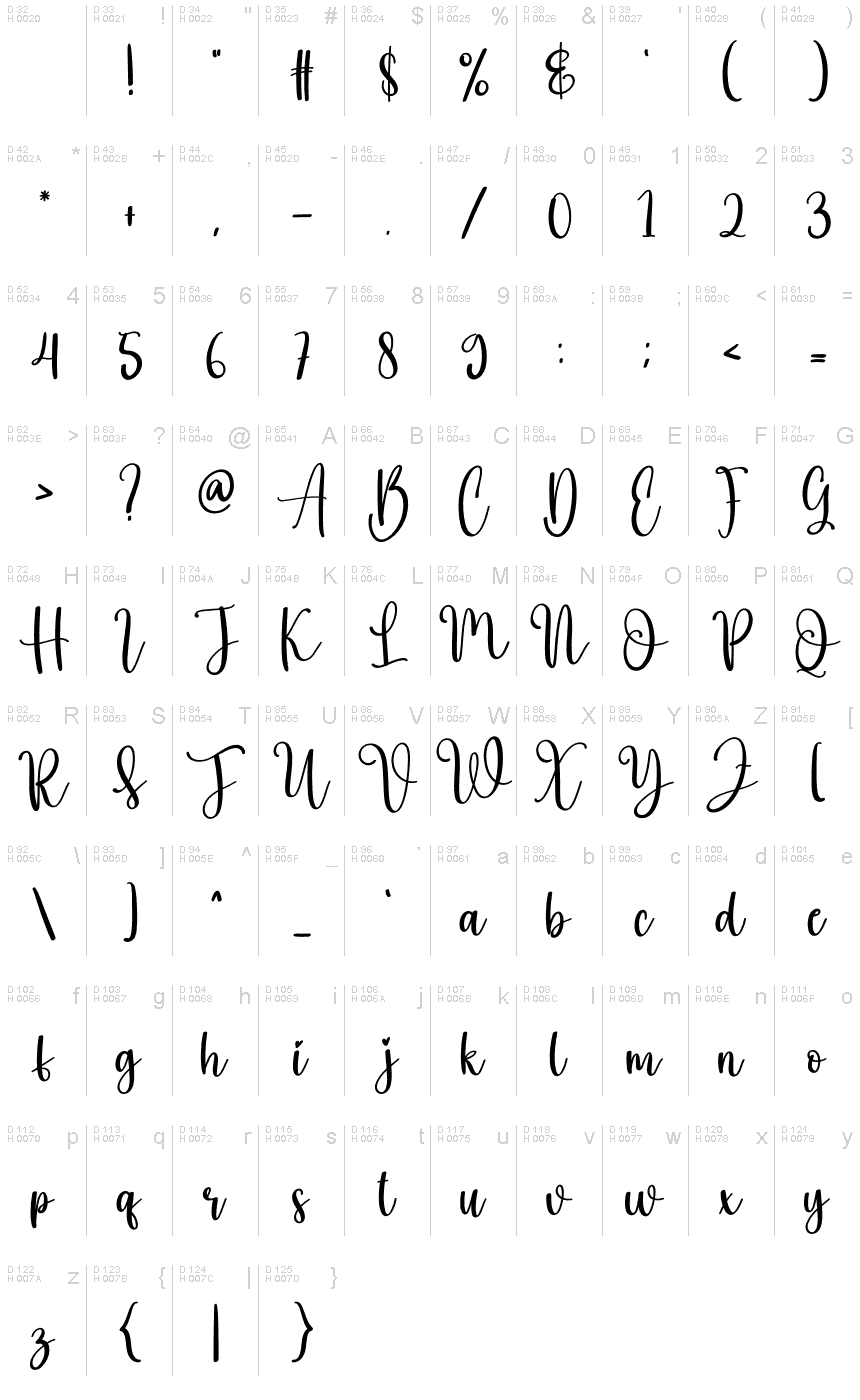
Laserblue
Laserblue, created by renowned designer Scratchones, is a captivating handwritten font with a semi-light weight. With its artistic strokes and fluid curves, Laserblue adds a touch of elegance to any project.
Ideal for wedding invitations, greeting cards, and branding materials, this font unleashes creativity and charm. Its versatility makes it perfect for designing book covers that exude an air of sophistication or crafting eye-catching posters that demand attention. Whether you're working on a whimsical children's book or an upscale fashion blog, Laserblue will effortlessly elevate your design to new heights.